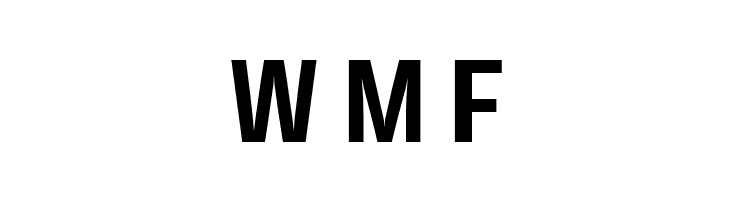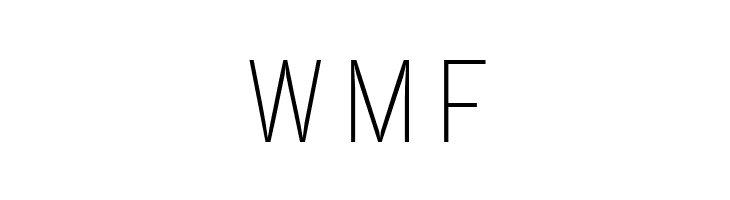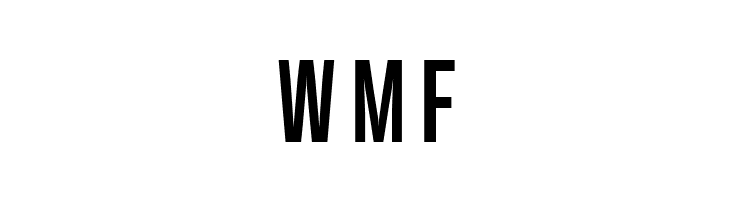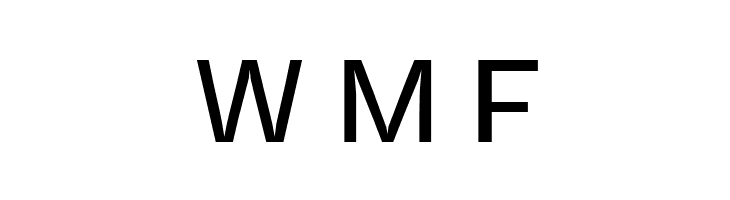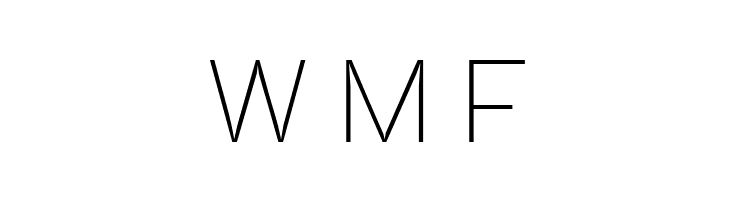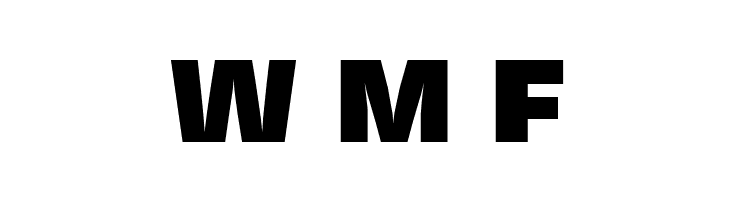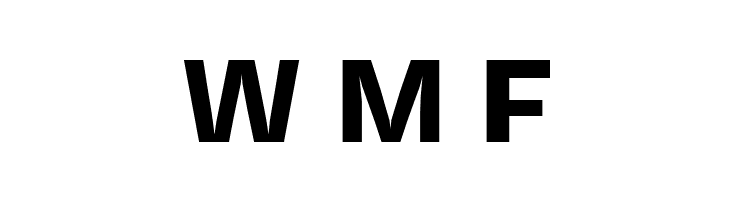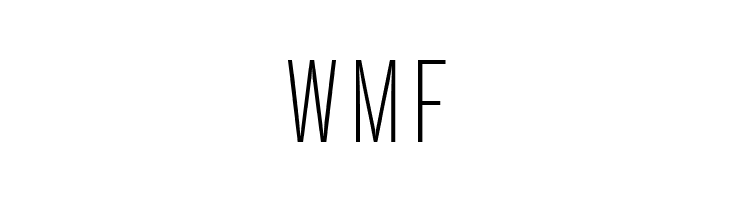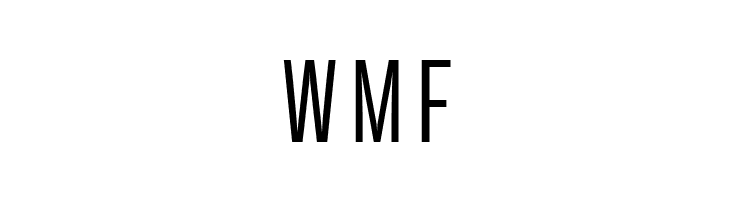
A bold, modern font with strong geometric shapes and uniform strokes.
A modern, thin sans-serif font with clean lines and elegant simplicity.
A bold, condensed font with a modern and uniform appearance.
A modern sans-serif font with expanded, clean letterforms and a sleek appearance.
A modern, expanded, and thin font with clean lines and minimal contrast.
A bold, expanded font with a modern and impactful style.
A bold, modern font with expanded letterforms and consistent thickness.
A modern, condensed, and thin font with a sleek and elegant design.
A modern, condensed sans-serif font with a light weight and tight spacing.
A bold, modern font with a strong and uniform appearance.